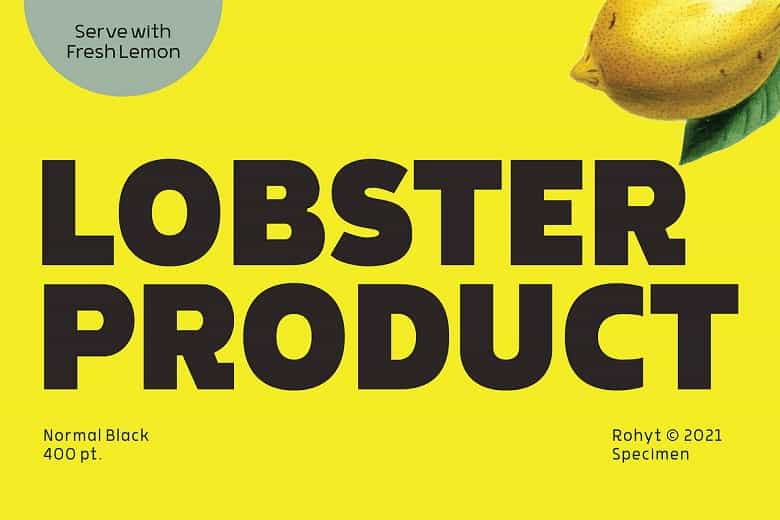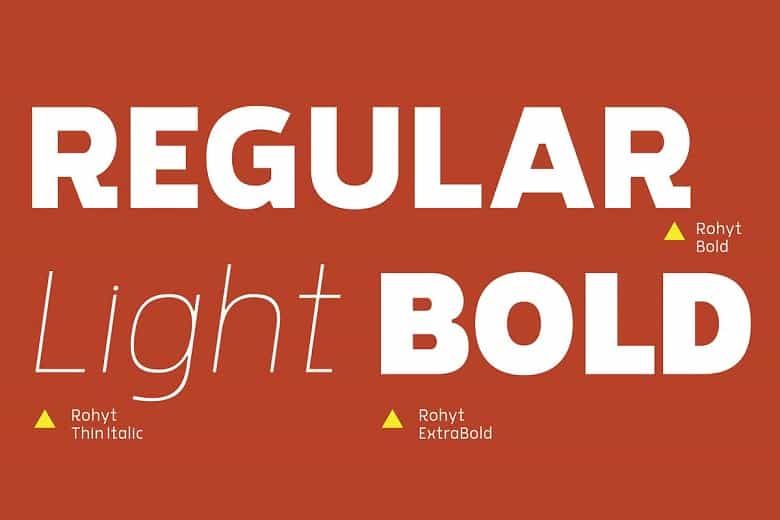
Rohyt Geometric is a revision on the original Rohyt font that has been given a geometric construction. Intended to be more Corporate, the font family has flat terminals that go well with sharp edges. All these features make “Rohyt Geometric” to be a distinguished, noticeable and qualified font.